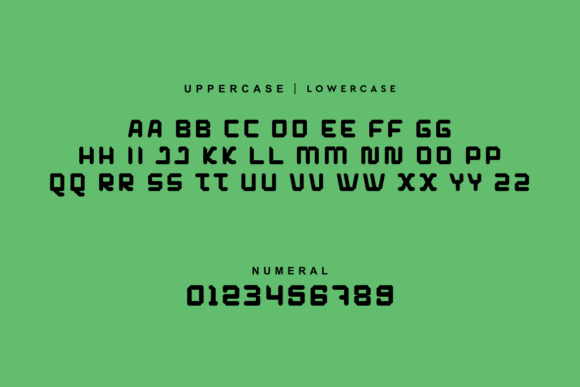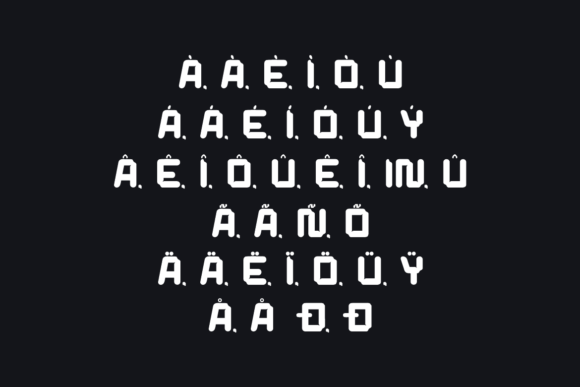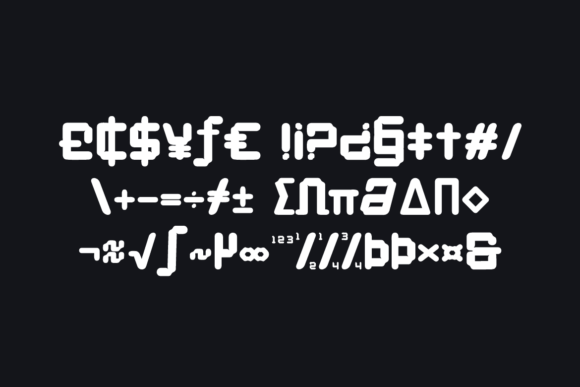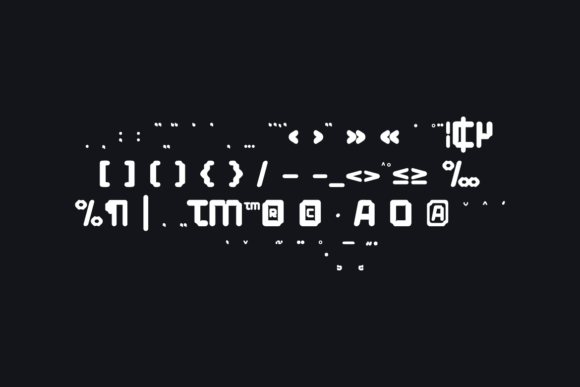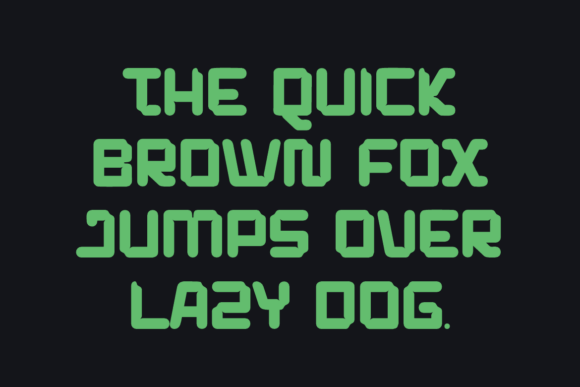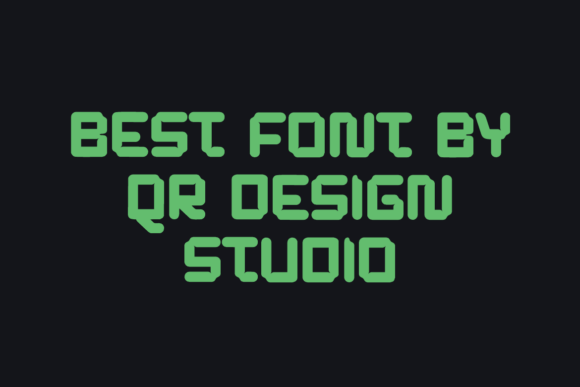
The Futuristic Edge: Unleashing the Power of Enginx Font
I’ll never forget the struggle I faced while working on a futuristic sci-fi project. My client wanted a font that screamed innovation and technology, but I was stuck in a typographic rut. That’s when I stumbled upon Enginx Font, a sleek and modern typeface that instantly elevated my design game. In this article, I’ll share my love for Enginx, its unique features, and how to make the most of it in your designs.
An Honest Review of Enginx Font
What I Love About Enginx ✨
- ✅ Unique Cyber-Industrial Vibe: Enginx’s rounded, modular letterforms perfectly blend soft curvature with mechanical uniformity, giving it a distinct techno-aesthetic.
- ✅ Precision-Cut Terminals: The font’s precise terminals and consistent stroke widths evoke digital interfaces, making it ideal for UI design, robotics, and sci-fi titles.
- ✅ PUA Encoding: With PUA encoding included, all special characters and decorative elements are easily accessible without additional software.
- ✅ Clarity and Forward-Thinking Appeal: Enginx’s unique glyph design ensures clarity and a refined yet experimental typographic identity.
While Enginx is an amazing font, there are a few minor limitations to consider:
- 🤔 Limited Serif Options: Enginx is a sans-serif font, which might not be suitable for projects requiring a more traditional or serif look.
- 🤔 Glyph Overload: With so many special characters and decorative elements available, it can be overwhelming to navigate the font’s glyphs.
The Design Story Behind Enginx
Enginx was born from the fusion of technology and design. Its creator, a visionary typographer, aimed to craft a font that embodies the spirit of innovation and forward thinking. By combining industrial and digital elements, Enginx emerged as a unique and captivating typeface.
| Font Name | Enginx Font |
Q: What is the primary use case for Enginx Font?
A: Enginx is ideal for UI design, robotics, sci-fi titles, technology branding, and any project requiring a futuristic and techno-aesthetic look.
Q: Is Enginx suitable for body text?
A: While Enginx is a beautiful font, its futuristic and techno-aesthetic design makes it more suitable for headings and titles. For body text, consider a more traditional or serif font for better readability.